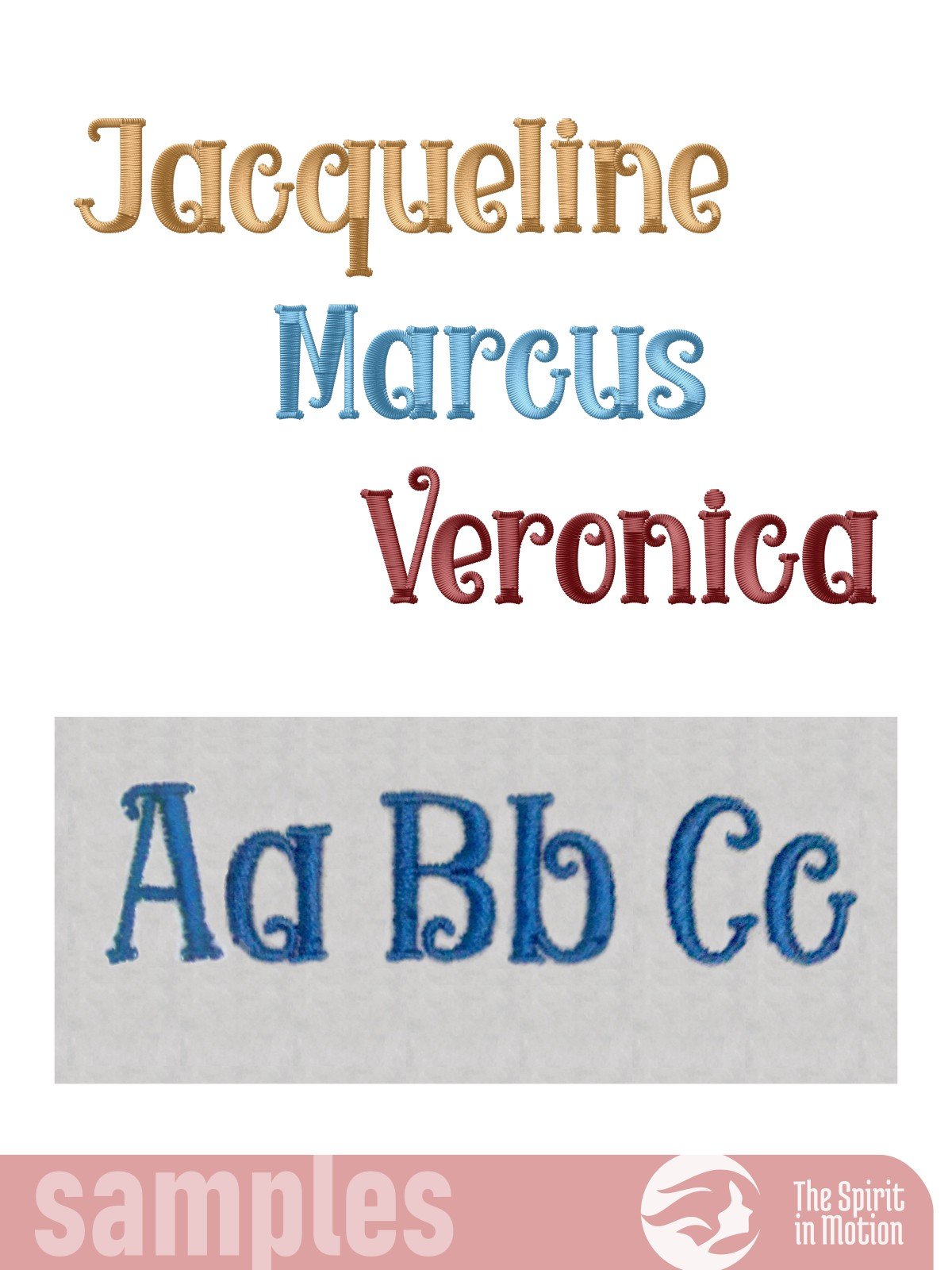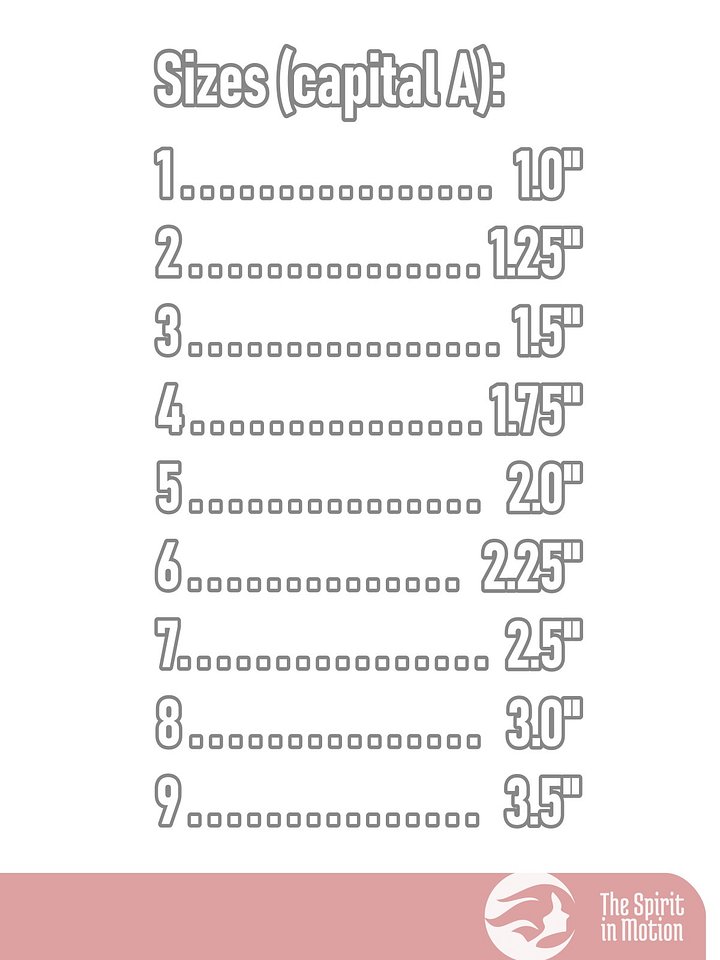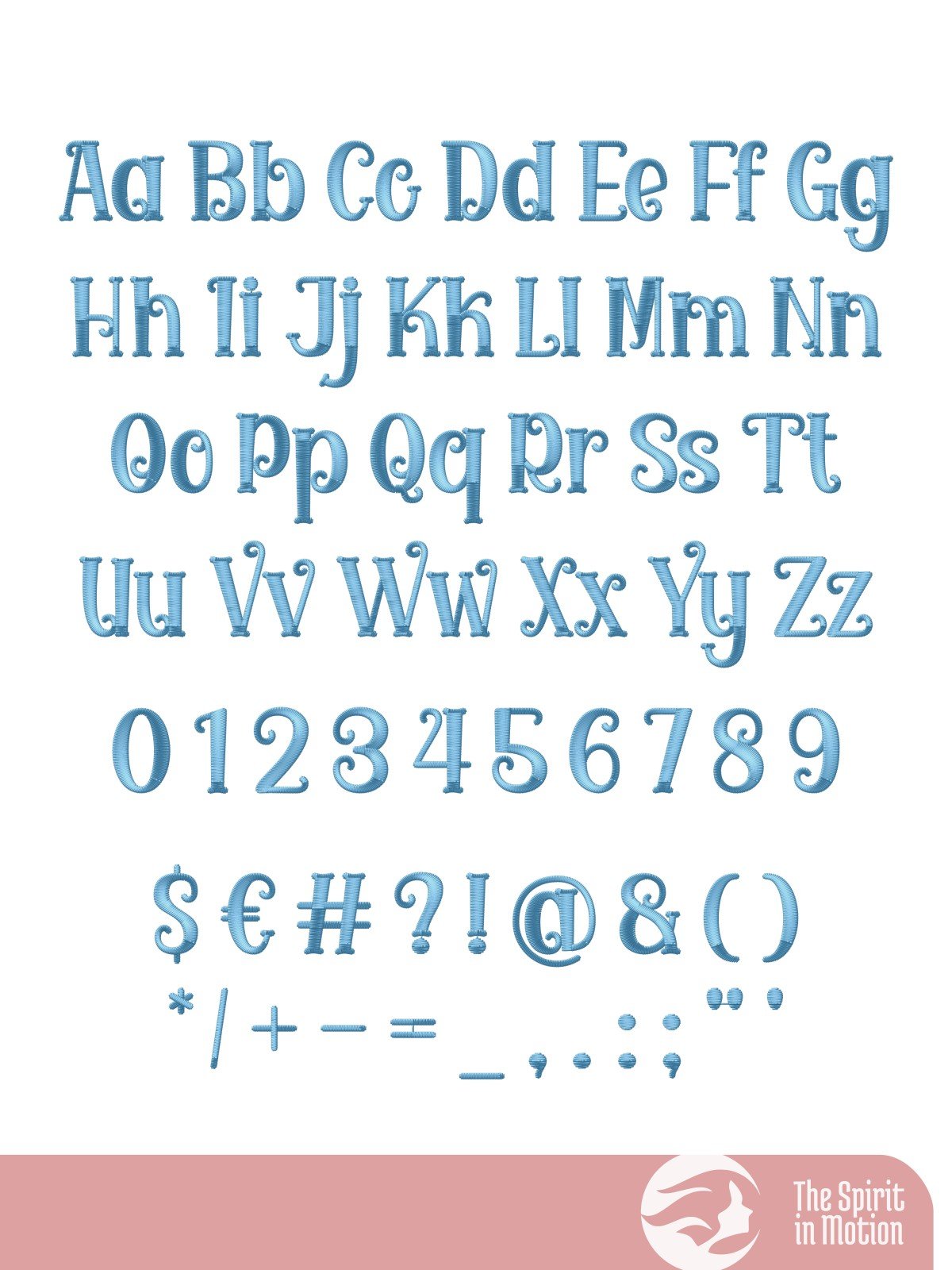
Candy Land Embroidery Font
Candy Land is a whimsical embroidery font with charming curls and playful details. Its decorative letters are perfect for kids' projects, birthday outfits, Halloween costumes, and cheerful personalized gifts. Add a touch of sweetness and fun to your embroidery with this delightful display font.